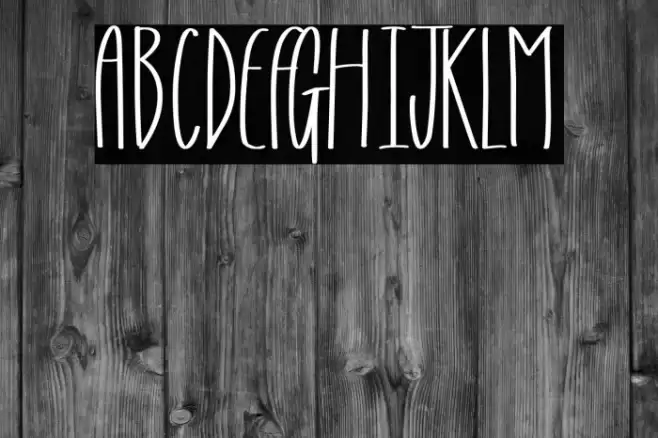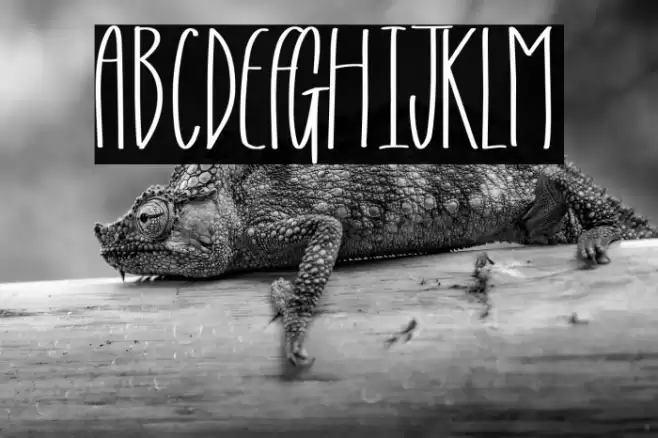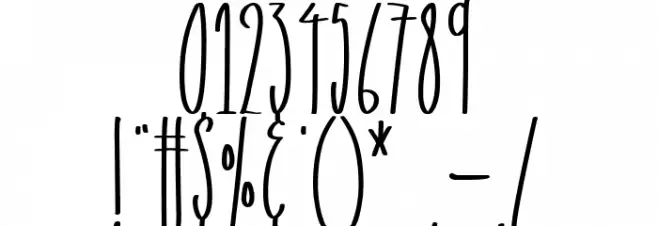
Gospel Message Font
Gospel Message Description
This font features a playful and whimsical handwritten style, characterized by tall, narrow letters with a slight slant. The strokes are consistent in width, giving it a uniform appearance. The uppercase letters are particularly elongated, while the lowercase letters maintain a more compact form. Numbers and special characters follow the same playful aesthetic, making the font suitable for creative and informal designs. The overall look is casual and friendly, perfect for projects that require a personal touch.
A playful, handwritten font with tall, narrow letters and a whimsical style from Uncategorized fonts.
- Font: Gospel Message
- Proposed Projects: Ideal for greeting cards, children's books, playful branding, and creative social media graphics.
- Overall Style: Casual, Playful
- Use Case: Headlines, Informal text, Creative projects
Gospel Message UPPERCASE
Gospel Message LOWERCASE
Gospel Message OTHER CHARS